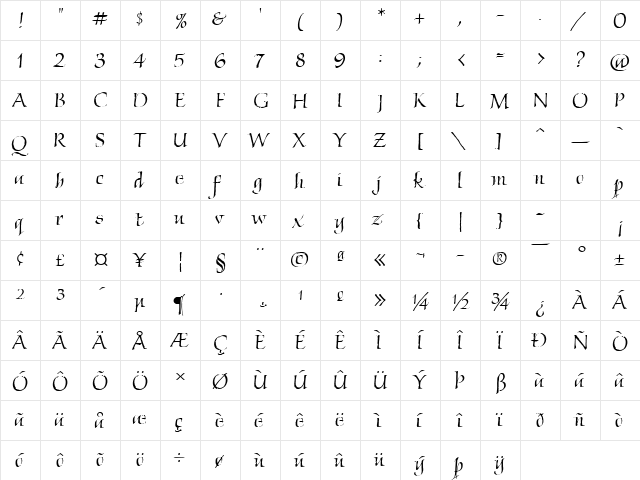
Chivalry ITCTT Regular
| Foundry | International Typeface Corporation |
| Designer | Rob Leuschke |
Design Context for Chivalry ITCTT Typeface
Chivalry ITCTT takes a measured approach to typography — its balanced proportions and neutral character make it a reliable workhorse for both digital and print work.